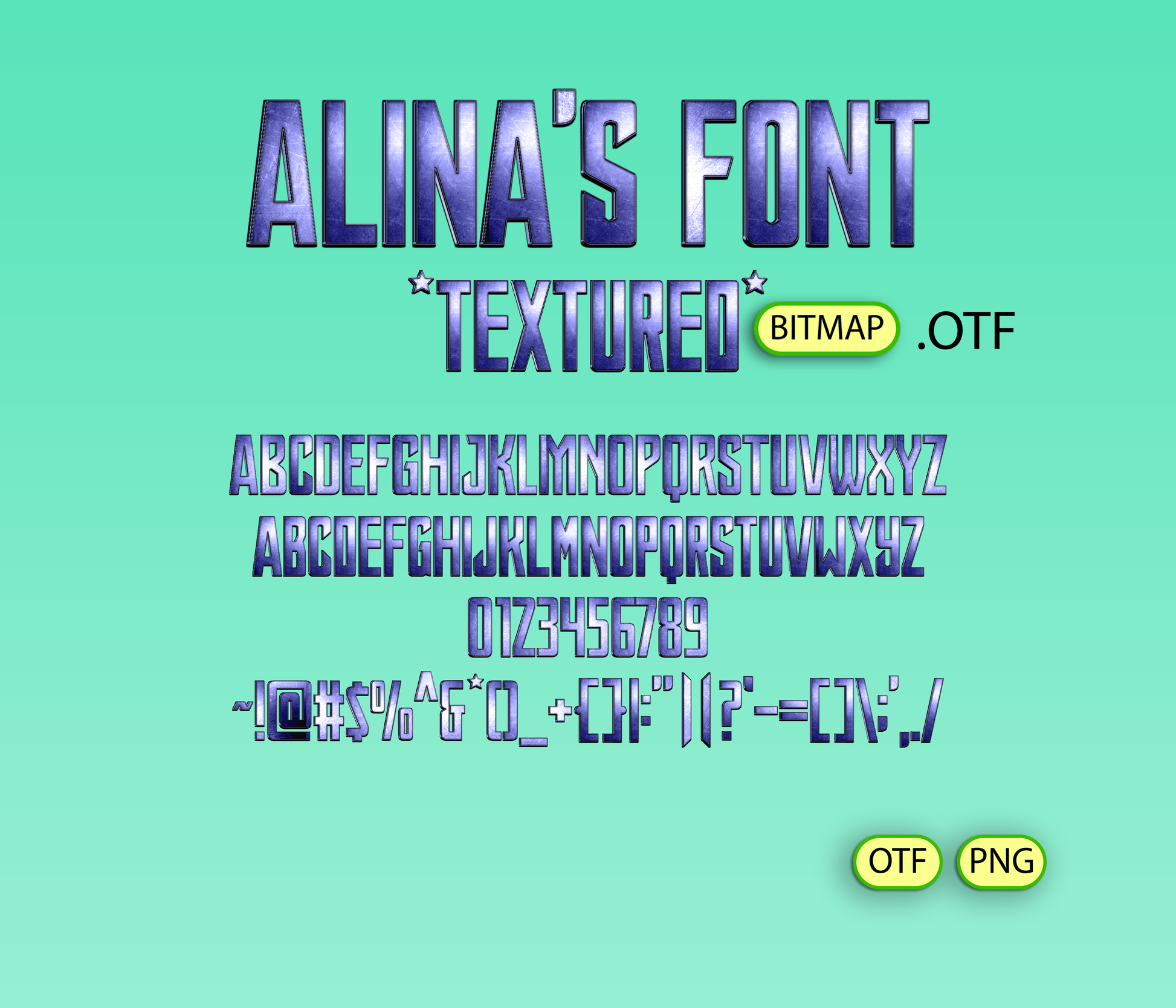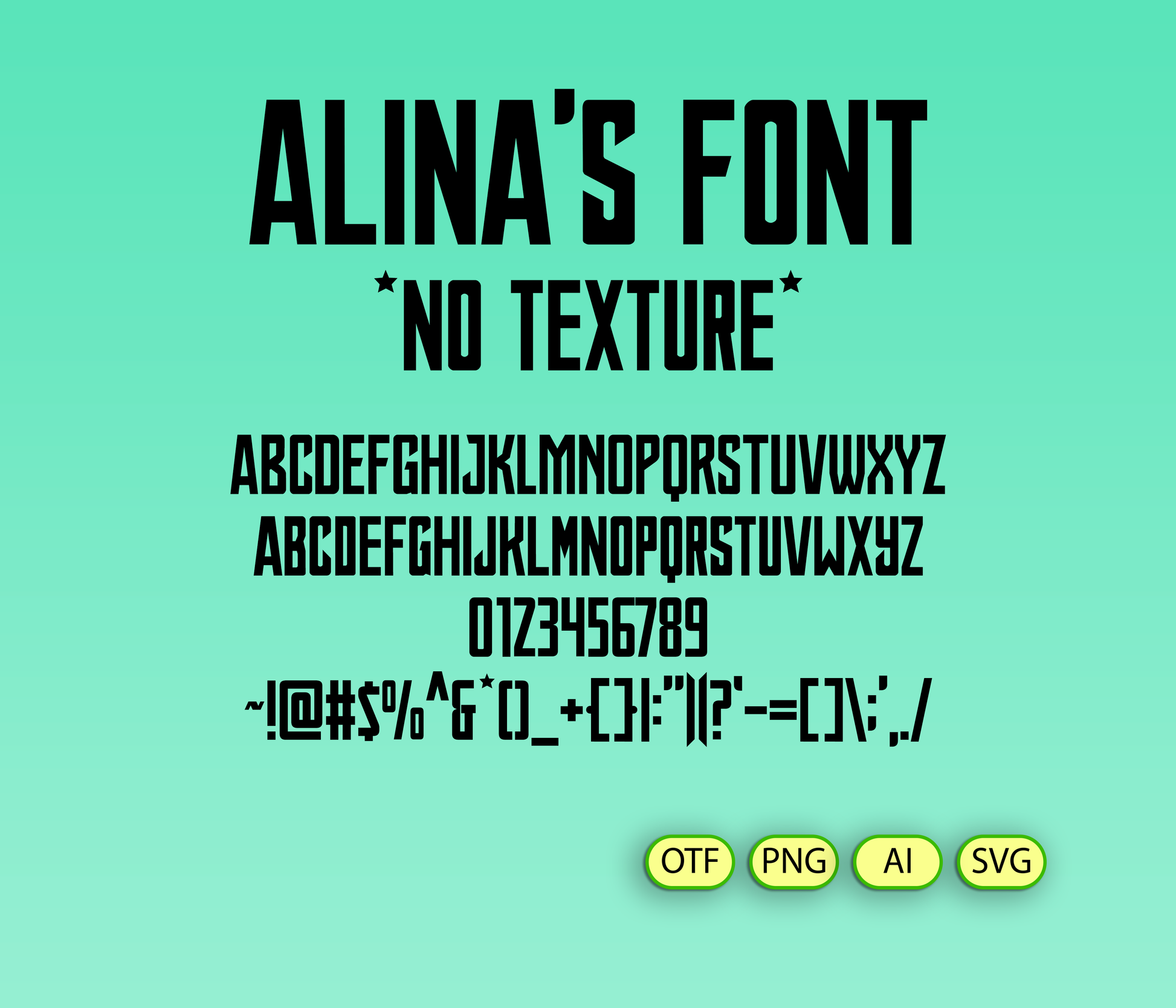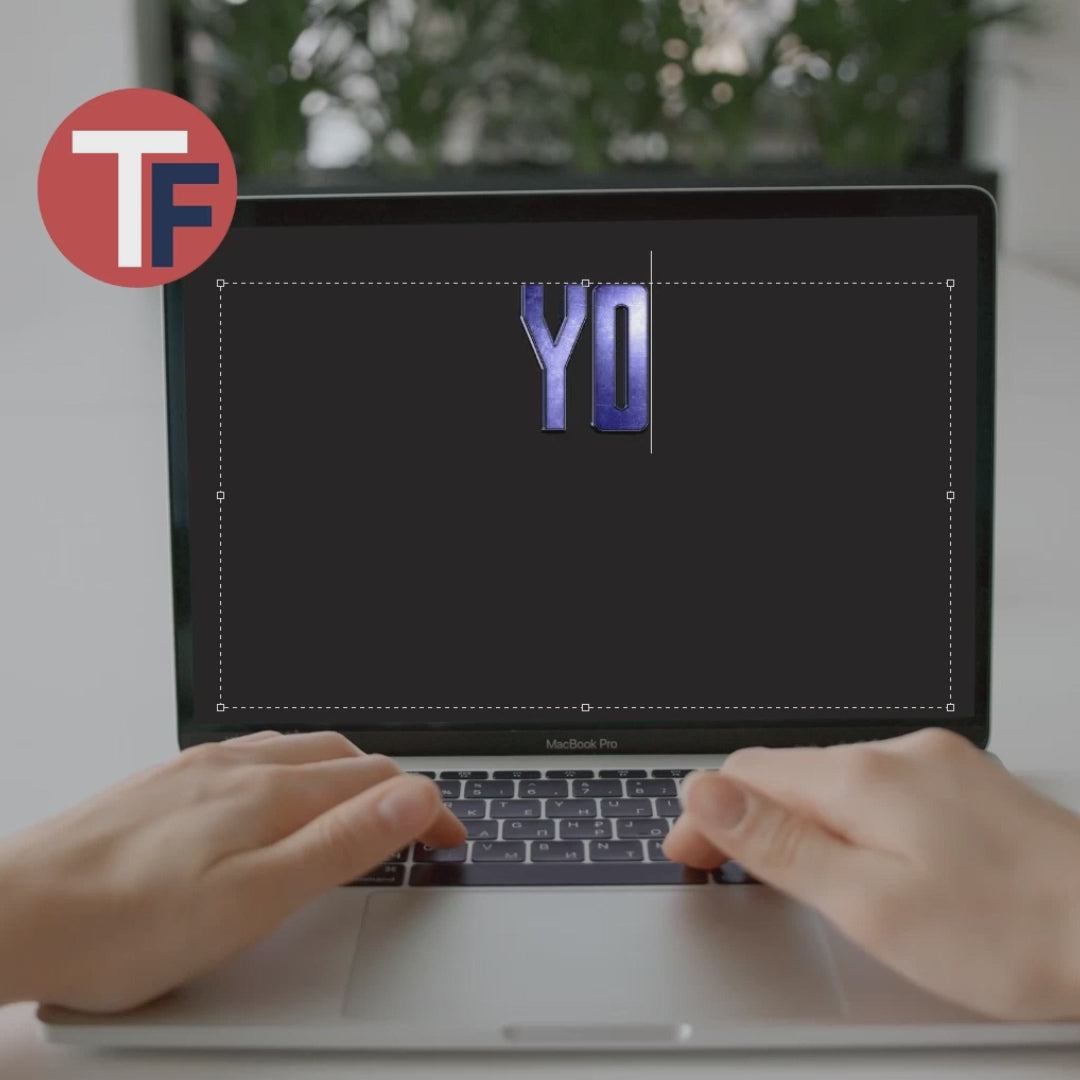
Heroic League Font Textured
Unleash Superhero Brilliance with the Heroic League-Inspired Font
Step into the world of superheroes with our Heroic League-inspired font, designed to capture the dynamic and powerful essence of this legendary team. Perfect for fans, event planners, and designers looking to infuse their projects with the heroic spirit of the Heroic League, this font brings the iconic strength and unity of these heroes to your creations. Whether you're crafting event invitations, designing themed merchandise, or creating digital content, our Heroic League font ensures your projects shine with the epic and inspiring nature of this beloved franchise.
Our Heroic League-inspired font features bold, striking lines and dynamic characters that reflect the power and heroism of iconic superheroes. This versatile font is ideal for a variety of applications:
To ensure maximum usability and flexibility, our Heroic League-inspired font includes both textured and non-textured variants. The non-textured version is particularly beneficial, ensuring compatibility with all types of software, including Canva. This feature allows users of all skill levels to seamlessly incorporate the font into their designs, enhancing accessibility and ease of use across various digital and print platforms.
Heroic League Font Generator
Many people seek out a Heroic League Font generator online to mimic the look of the Heroic League Font. Steer clear! No font generator can match the quality of this Heroic League Font, which comes in two versatile versions: a textured colored Heroic League font and a simple Heroic League font. This is particularly beneficial if you plan to use it with a cutting machine.
Our Heroic League font not only pays tribute to legendary superheroes but also empowers you to infuse your designs with their dynamic and inspiring spirit. Whether you’re crafting promotional materials, designing unique merchandise, or adding a bold touch to personal projects, this font allows you to communicate with the strength and unity that define the Heroic League.